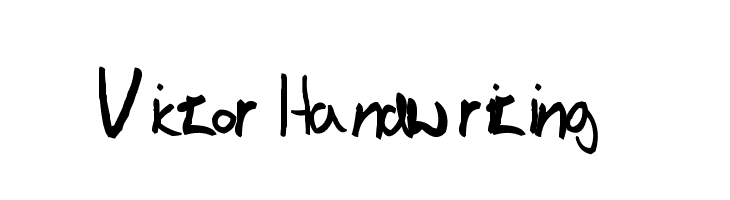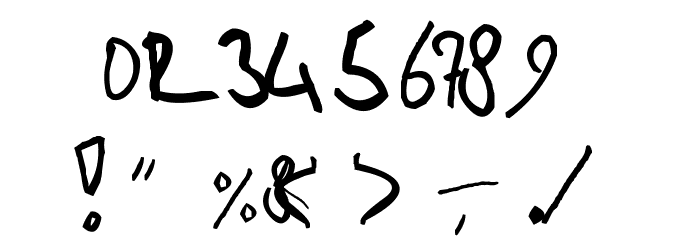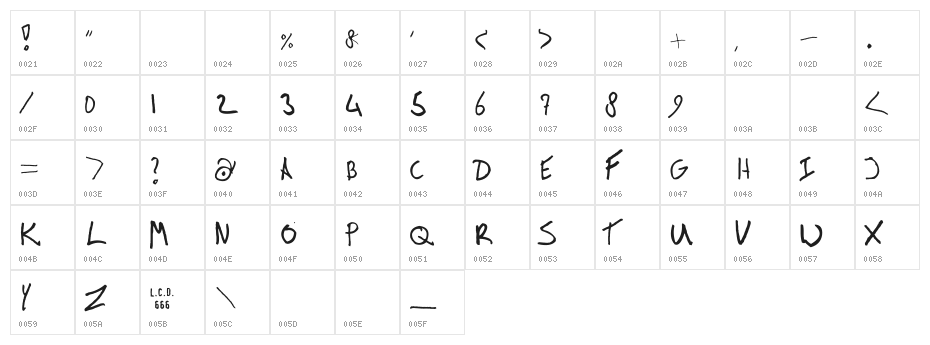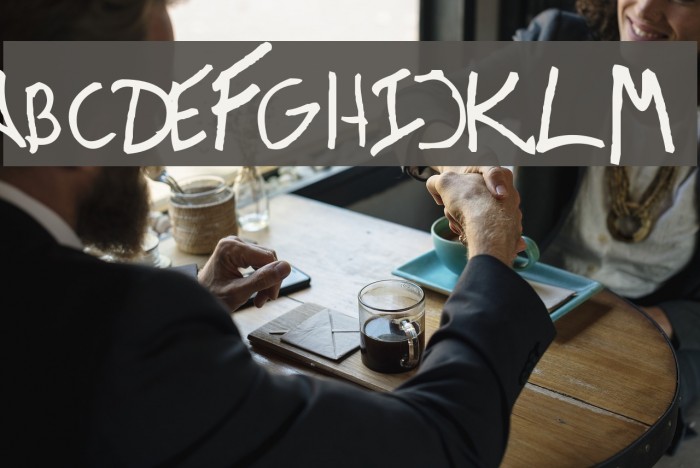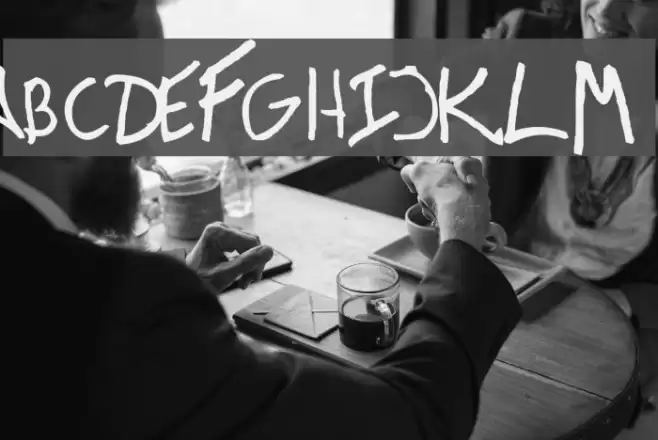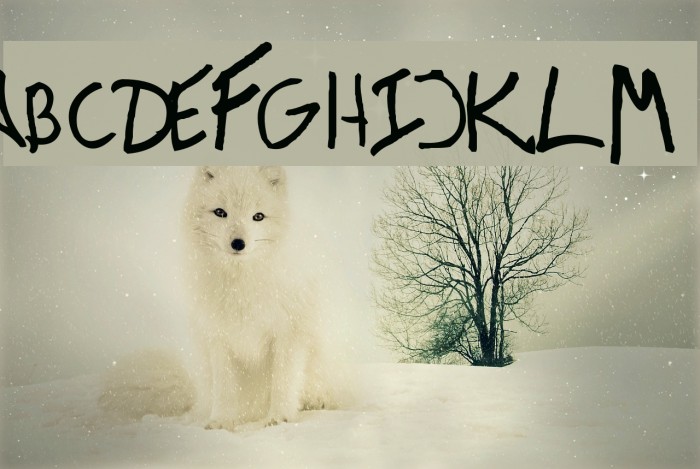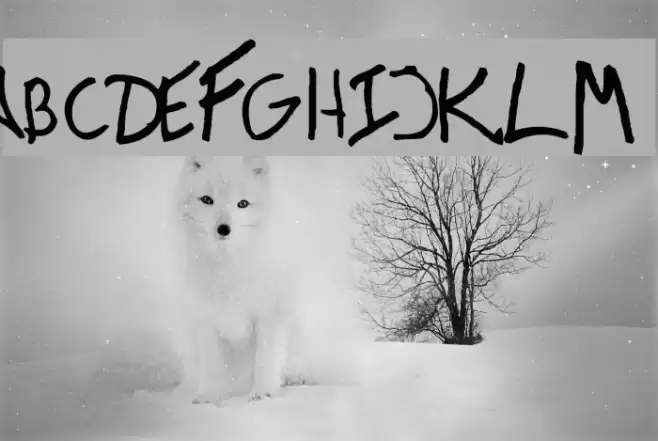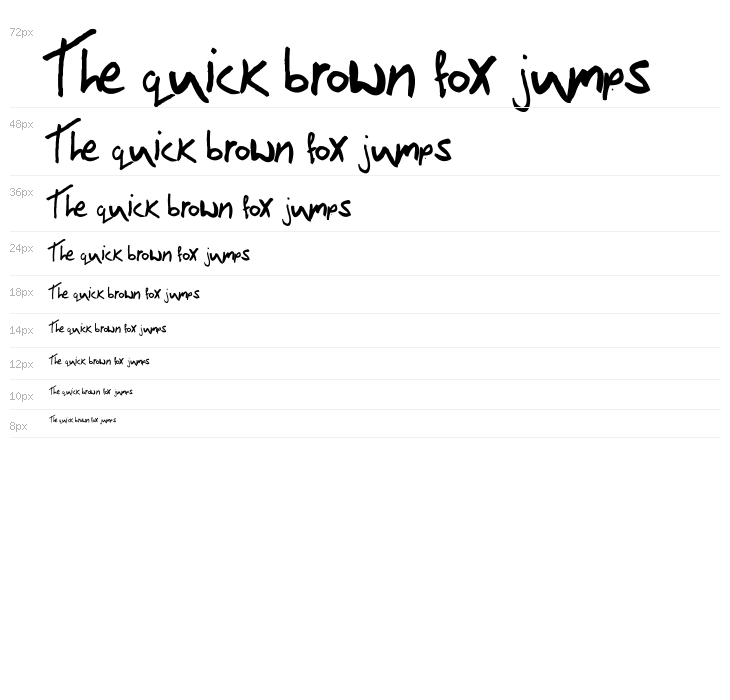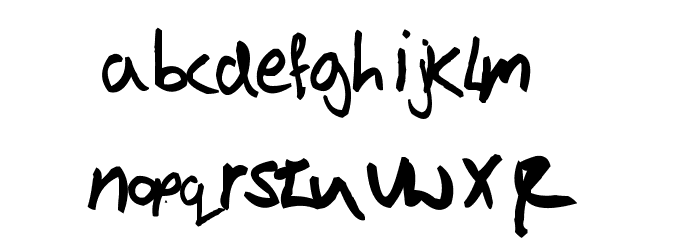
Victor Handwriting Font
Victor Handwriting Description
This font exudes a casual and spontaneous feel, reminiscent of authentic handwriting. The strokes are uneven and dynamic, giving it a lively and personal touch. The uppercase letters are bold and slightly slanted, while the lowercase letters maintain a consistent flow, enhancing readability. Numbers and special characters follow the same handwritten style, adding to the font's cohesive appearance. The overall design is informal and approachable, making it ideal for projects that require a personal or creative flair.
| Overall Style | Casual, Creative |
| Proposed Projects | Ideal for personal notes, creative projects, greeting cards, and informal branding. |